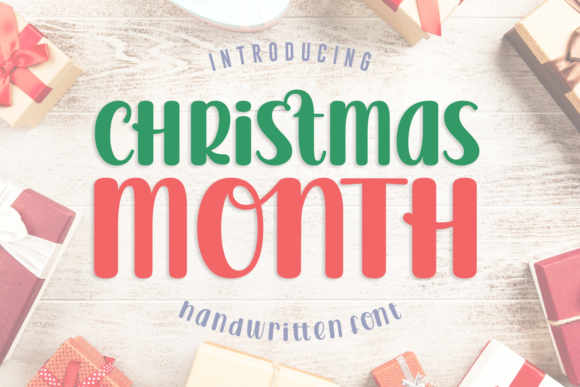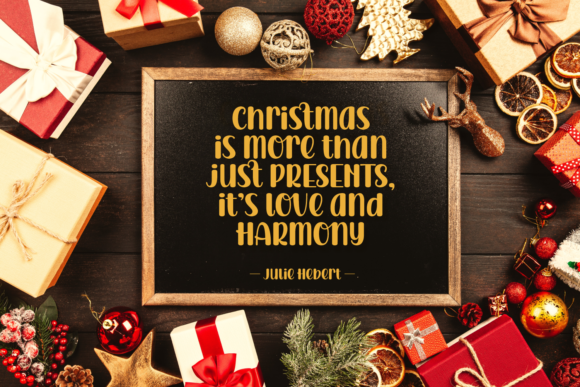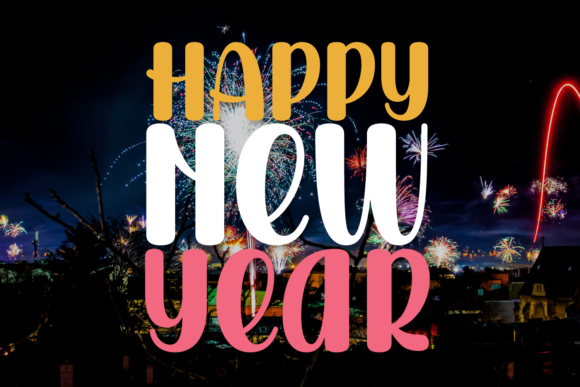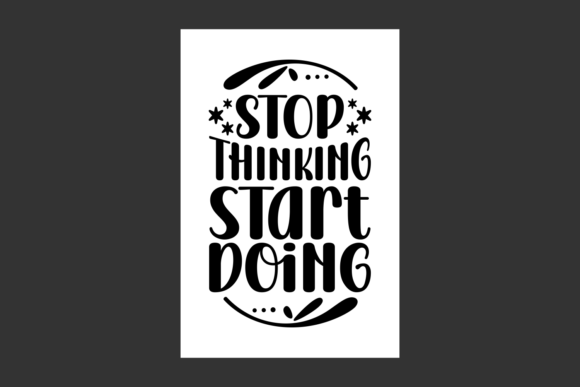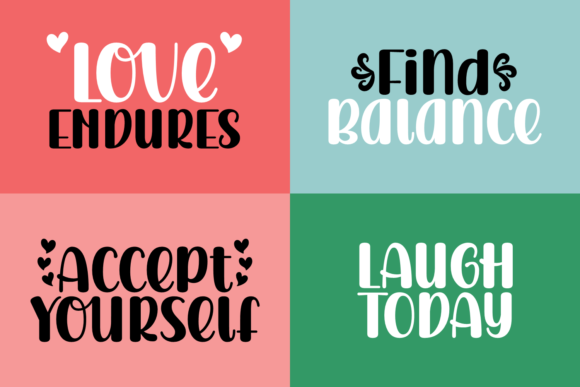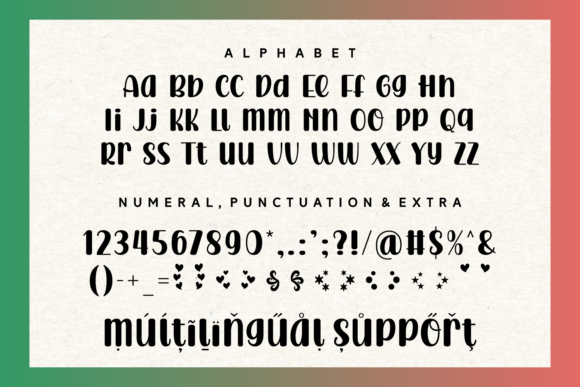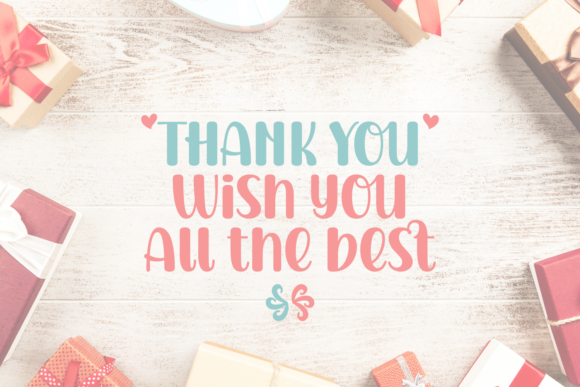
Unwrapping the Magic of the Christmas Month Font
As the snowflakes start to fall and the fireplace crackles to life, I find myself in the midst of a creative whirlwind – brainstorming ideas for festive designs, pouring over color palettes, and scouring the internet for the perfect font to capture the essence of the season.
That’s when I stumbled upon the enchanting Christmas Month Font, a curly, handwritten masterpiece that embodies the warmth and charm of the holiday season. This PUA encoded font is a game-changer for designers looking to add a personal touch to their winter-themed projects. With its effortless swashes and elegant curves, the Christmas Month Font is the perfect companion for any design that needs a dash of festive flair.
Christmas Month Font Key Features
- Unique Characteristics: The font features a festive, handwritten design with intricate details and ornaments, perfect for adding a touch of holiday cheer to designs.
- Font Style Variations: Each style of the font family has its own unique characteristics, including bold, italic, and script variations, allowing for a high degree of design flexibility.
Christmas Month Font Review
✨ The Christmas Month Font has a lot going for it. The design is festive and fun, making it perfect for holiday-themed projects. The font’s playful and whimsical feel is sure to add a touch of cheer to any design. The use of bold, colorful elements and intricate details is well-executed and visually appealing.
The font’s versatility is also a plus, as it can be used for a wide range of holiday-related projects, from greeting cards to advertisements. The font’s various weights and styles make it easy to mix and match to create a unique look.
However, there are some limitations to consider: ⚠️ The font’s overall feel can be a bit too kitschy for some designers. The use of too many bright colors and playful details can make the font feel overwhelming and difficult to read.
Additionally, the font’s scalability can be a bit of an issue. While it looks great at larger sizes, the details can get lost at smaller sizes, making it difficult to use in certain applications.
- Works well for: holiday-themed projects, greeting cards, advertisements
- Best used for: projects where a playful, whimsical feel is desired
- Limited by: potential overwhelming feel, scalability issues
Tips for Getting the Most Out of the Christmas Month Font
Use the Christmas Month font to create festive and holiday-themed designs.
Pair it with other festive fonts and graphics for a cohesive look.
Christmas cards and invitations
Holiday social media posts and graphics
Christmas party and event decorations
Alternatives to Christmas Month Font for Designers
Great Vibes is a modern, elegant script font ideal for designs that require a touch of sophistication and playfulness. It’s perfect for creating invitations, greeting cards, and other festive content. Great Vibes is a great alternative to Christmas Month Font as it offers a similar sense of elegance and festivity, but with a more refined and sophisticated look.
Pacifico is a beautiful, cursive font that exudes a sense of warmth and relaxation. It’s perfect for designs that require a laid-back, beachy vibe. While Christmas Month Font is more playful and festive, Pacifico offers a more subtle and understated approach to holiday designs.
Carolyna Pro is a luxurious, elegant script font that’s perfect for high-end designs. It’s ideal for creating invitations, greeting cards, and other premium content. Carolyna Pro is a great alternative to Christmas Month Font as it offers a similar sense of elegance and sophistication, but with a more refined and premium look.